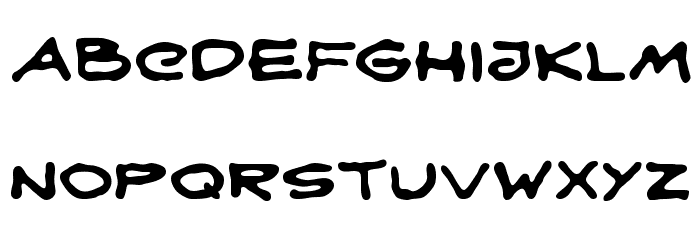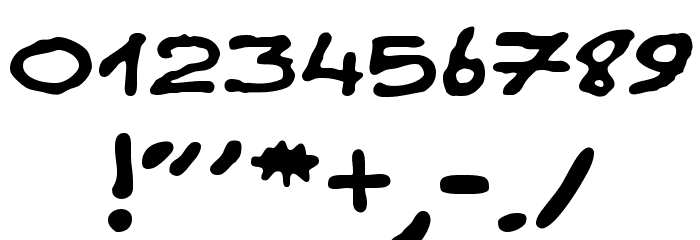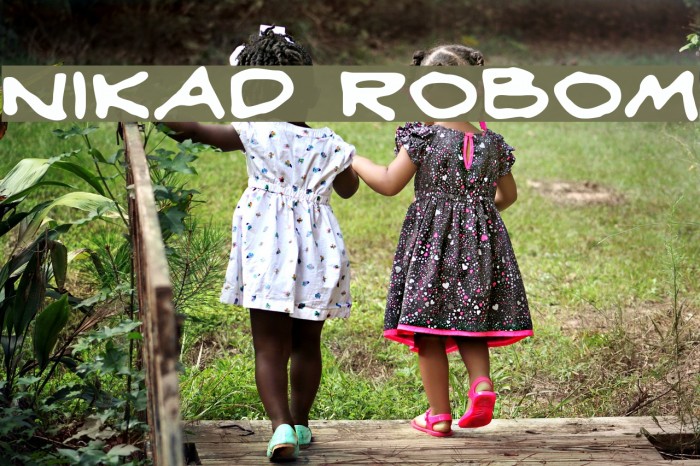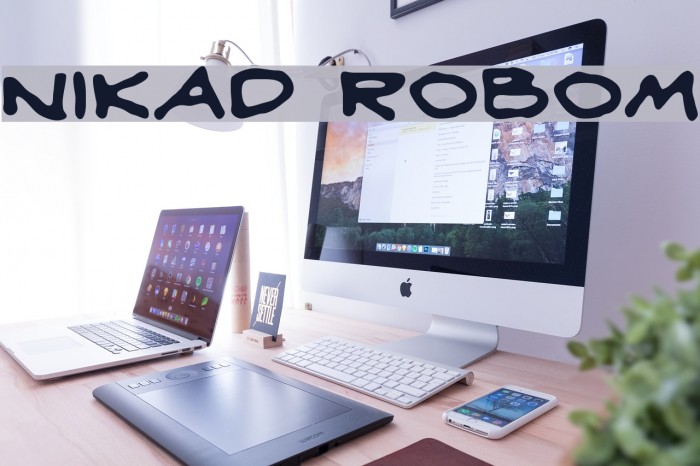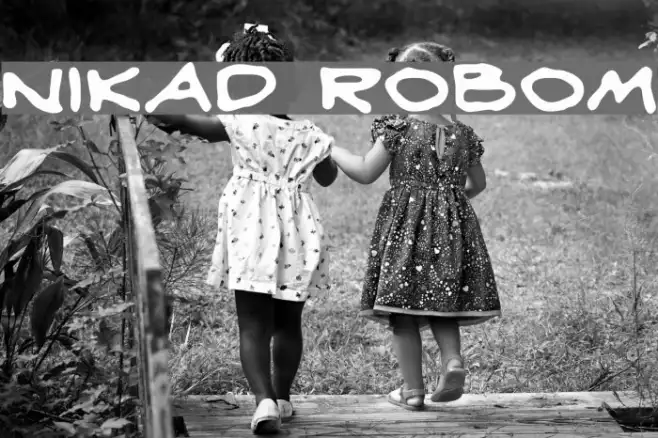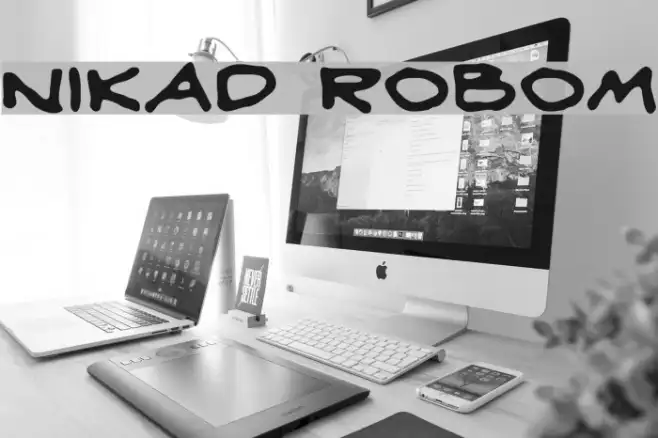
Nikad robom Font
This font features a playful and bold style with a handwritten appearance. The characters are slightly irregular, giving it a casual and informal feel. The strokes are thick and rounded, contributing to its friendly and approachable look. Each letter maintains a consistent weight, and the overall design is cohesive, making it suitable for projects that require a touch of whimsy. The numbers and special characters follow the same design principles, ensuring uniformity across all glyphs. This font is ideal for creative projects that aim to convey a sense of fun and spontaneity.
A playful, bold handwritten font with thick, rounded strokes.
- Proposed Projects: Children's books, greeting cards, playful branding, casual invitations.
- Overall Style: Playful
- Use Case: Headlines, Logos, Informal Text